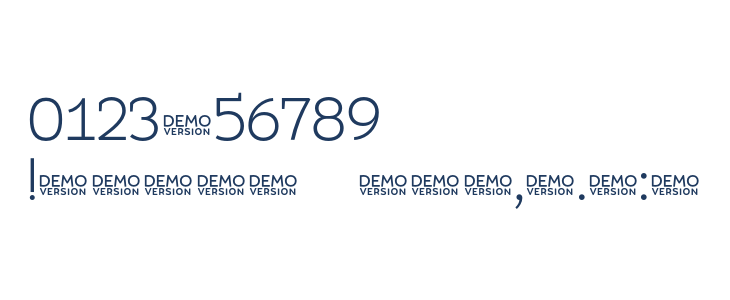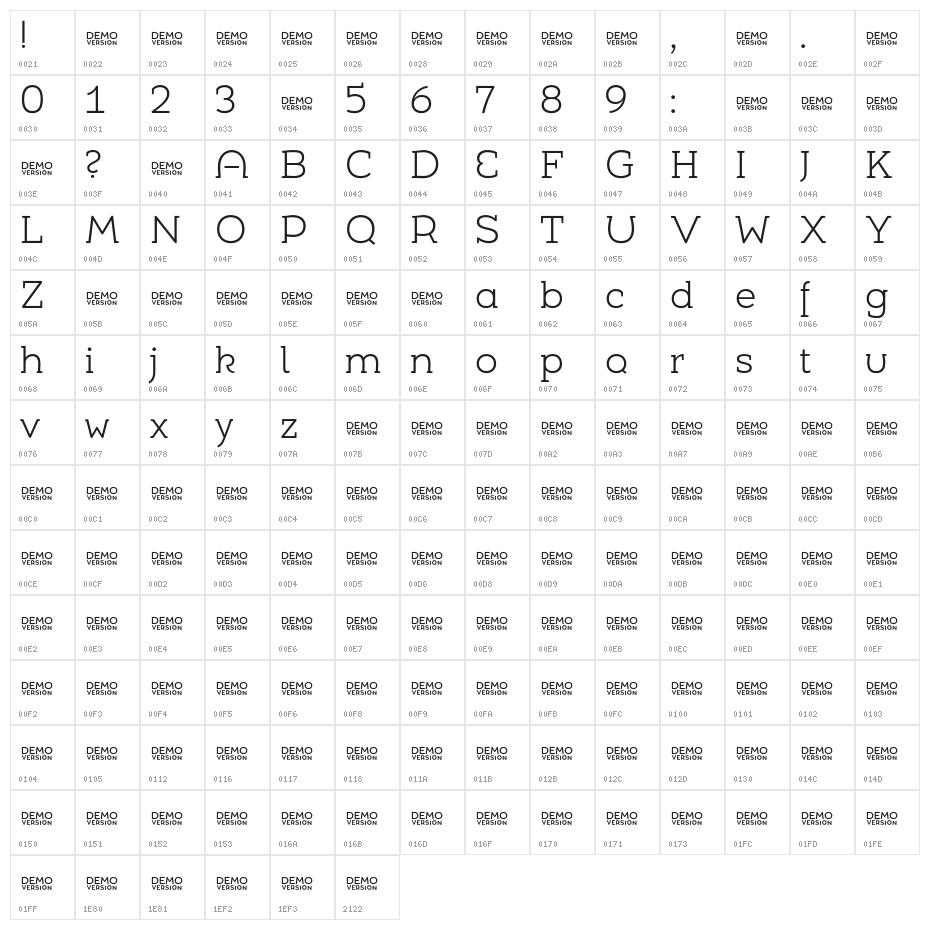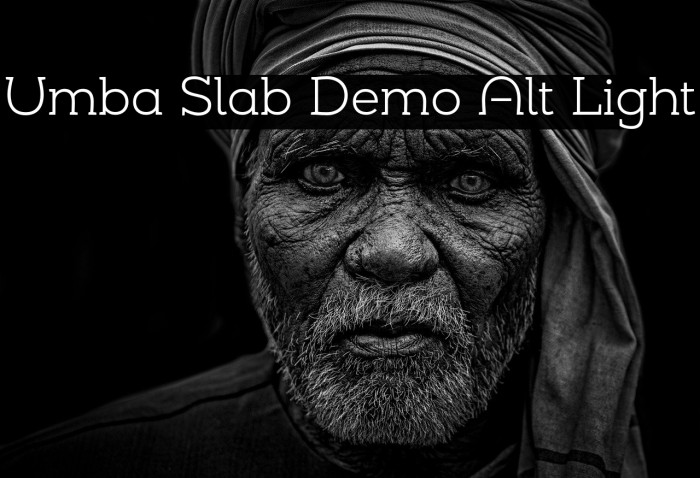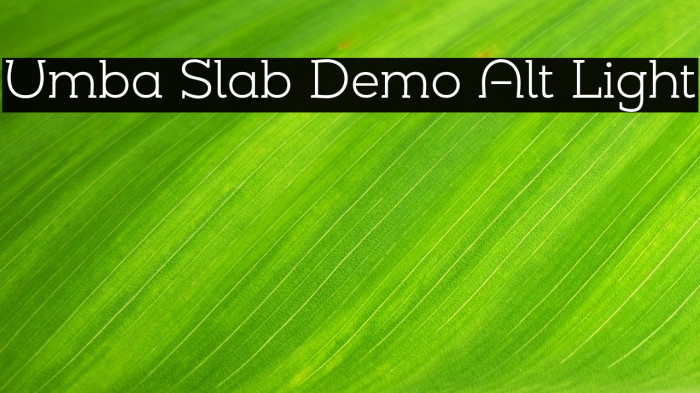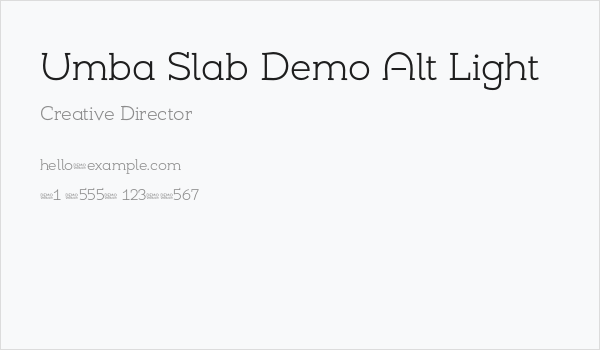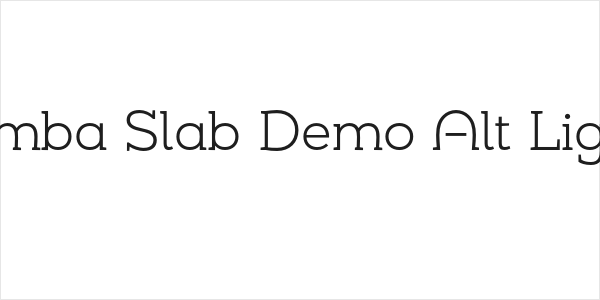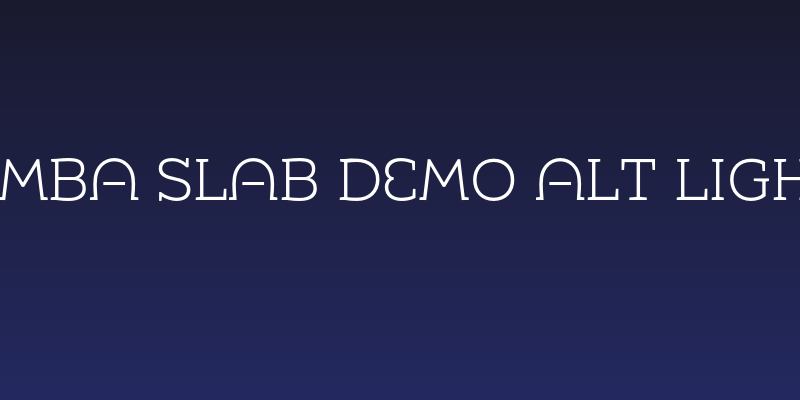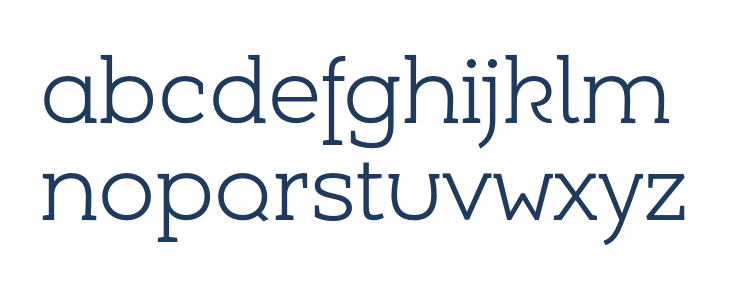
Umba Slab Demo Alt Light Font
Umba Slab Demo Alt Light Description
This font features a clean and modern slab serif design with a light weight, offering a refined and elegant appearance. The characters are well-proportioned, with a slight geometric influence that adds a contemporary touch. The serifs are subtle yet distinct, providing a classic feel without overwhelming the overall modern aesthetic. The font maintains a consistent stroke width, contributing to its low contrast and enhancing readability. Its open and airy character spacing ensures clarity and legibility, making it suitable for both digital and print applications. The font's versatility allows it to be used in various design contexts, from editorial layouts to branding projects.